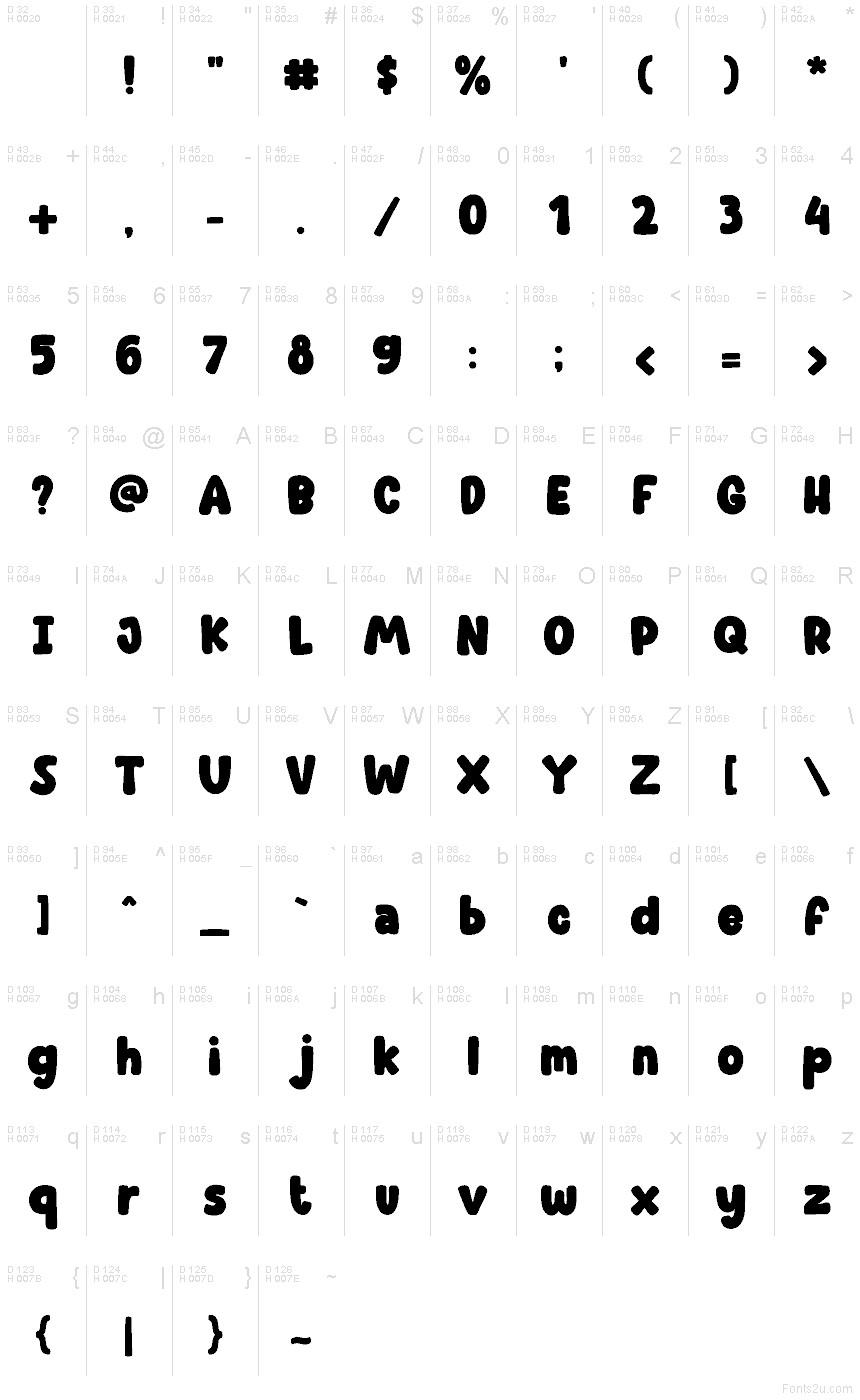
BACK TO SCHOOL
Back to School font by Mozatype is a free cartoon display typeface. Big, rounded, and a little squishy at the edges, it reads like bold marker lettering—friendly, legible, and full of bounce. The chunky forms keep lines consistent and easy to spot from across a room, so headlines pop without getting messy or noisy.
Using Back to School, you’ll get instant kid-friendly energy for classroom posters, bulletin boards, book fair banners, birthday invites, camp flyers, and YouTube thumbnails. This free font shines on colorful backgrounds and works beautifully in all-caps for punchy titles. Pair with a simple sans-serif for small print to keep information clear and tidy.